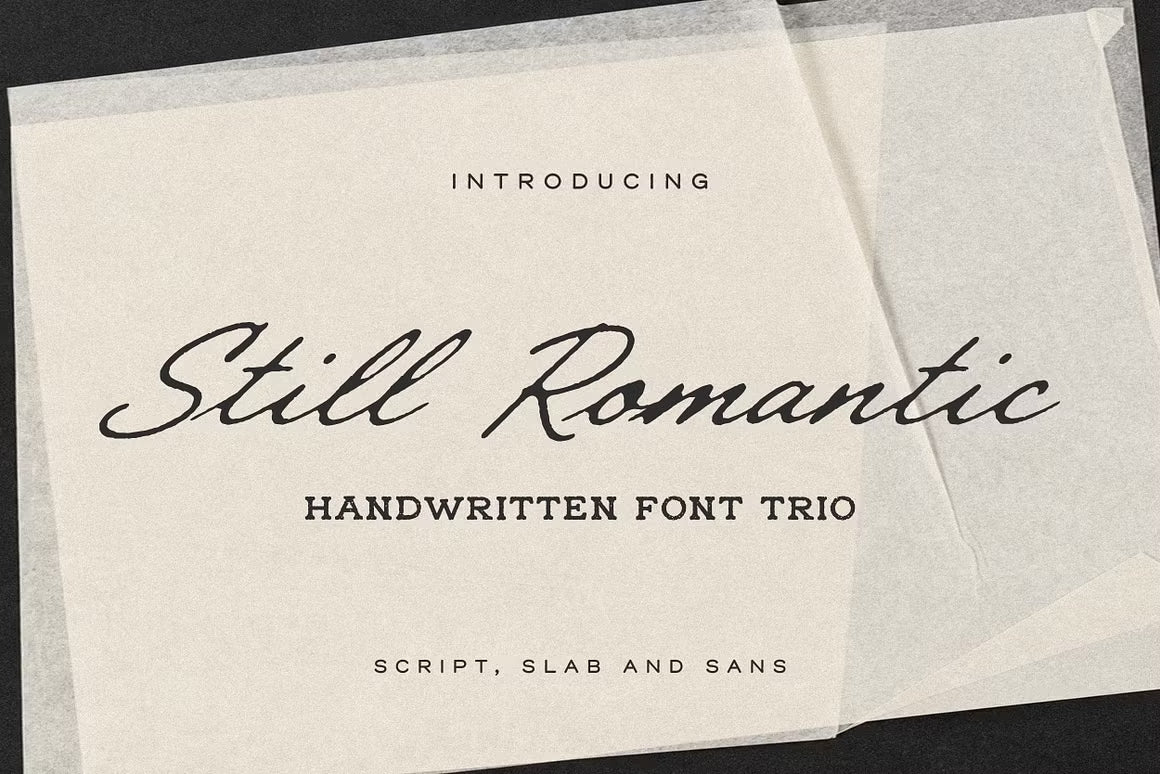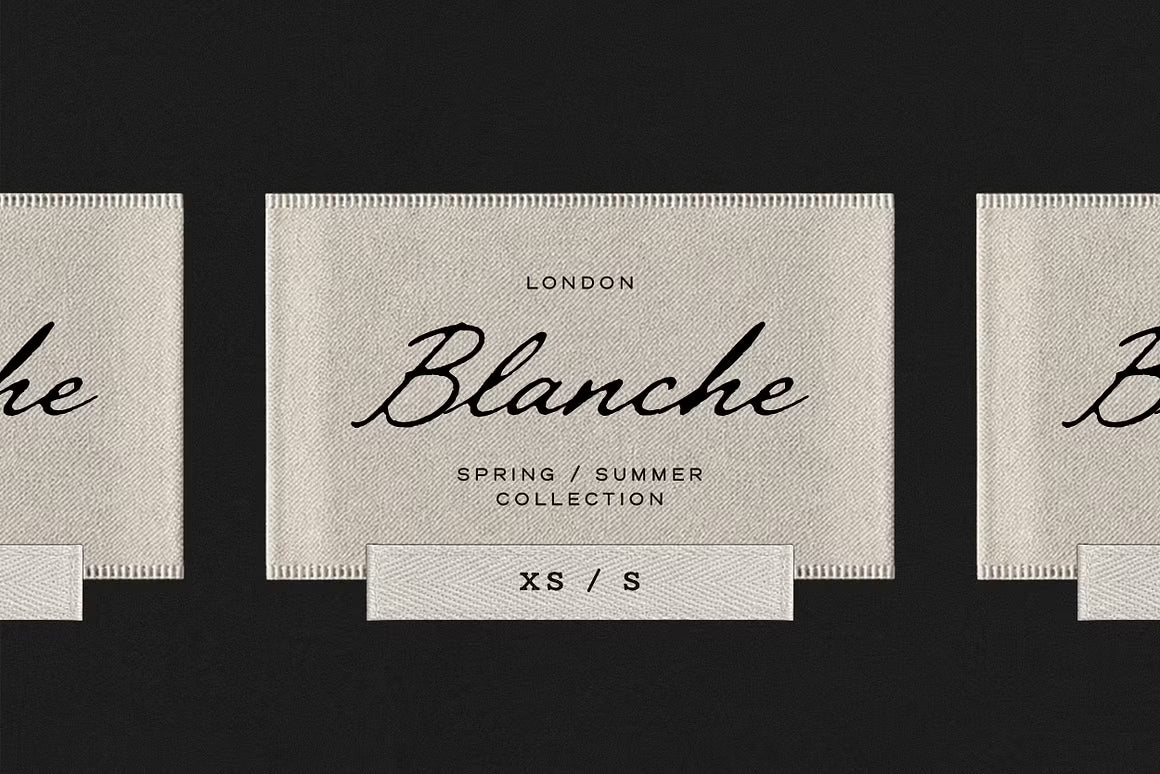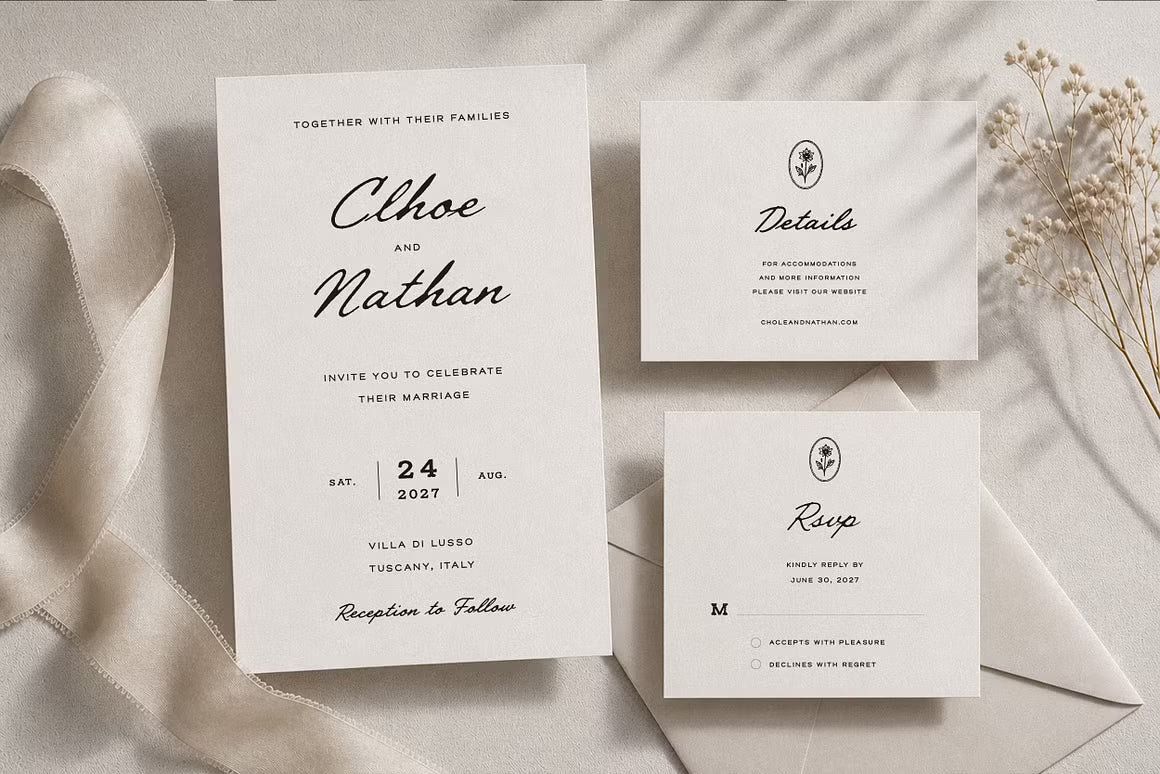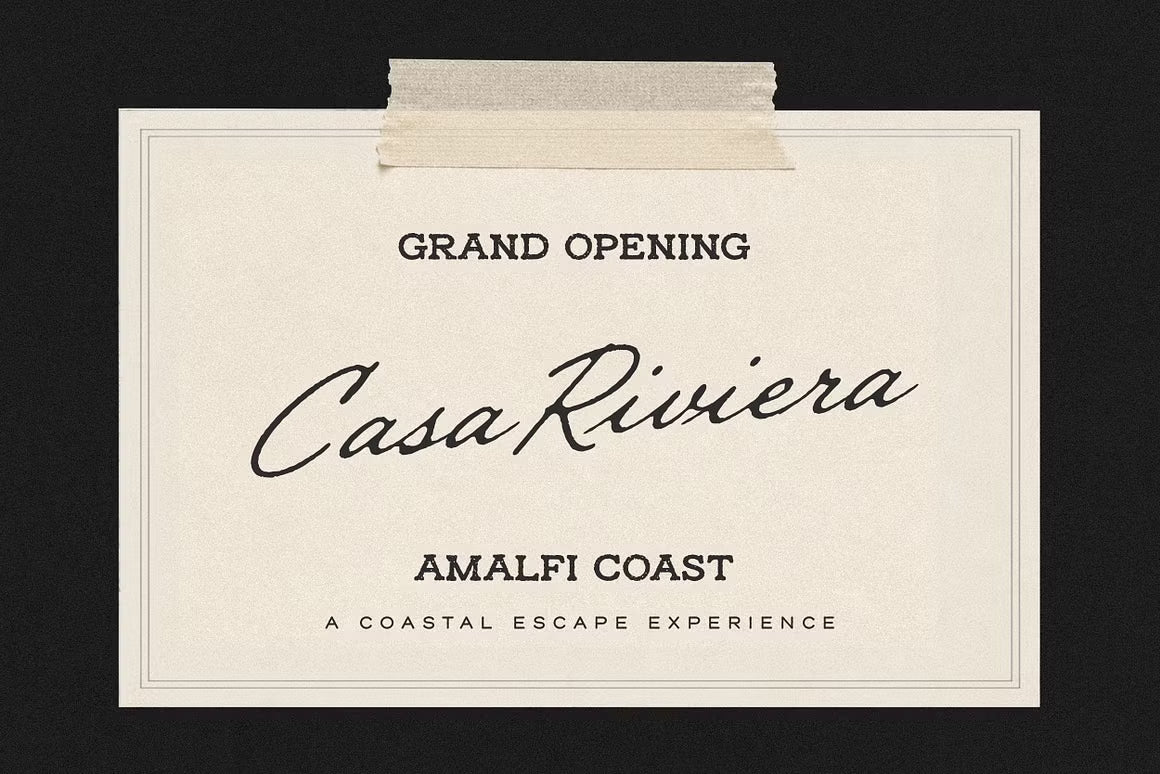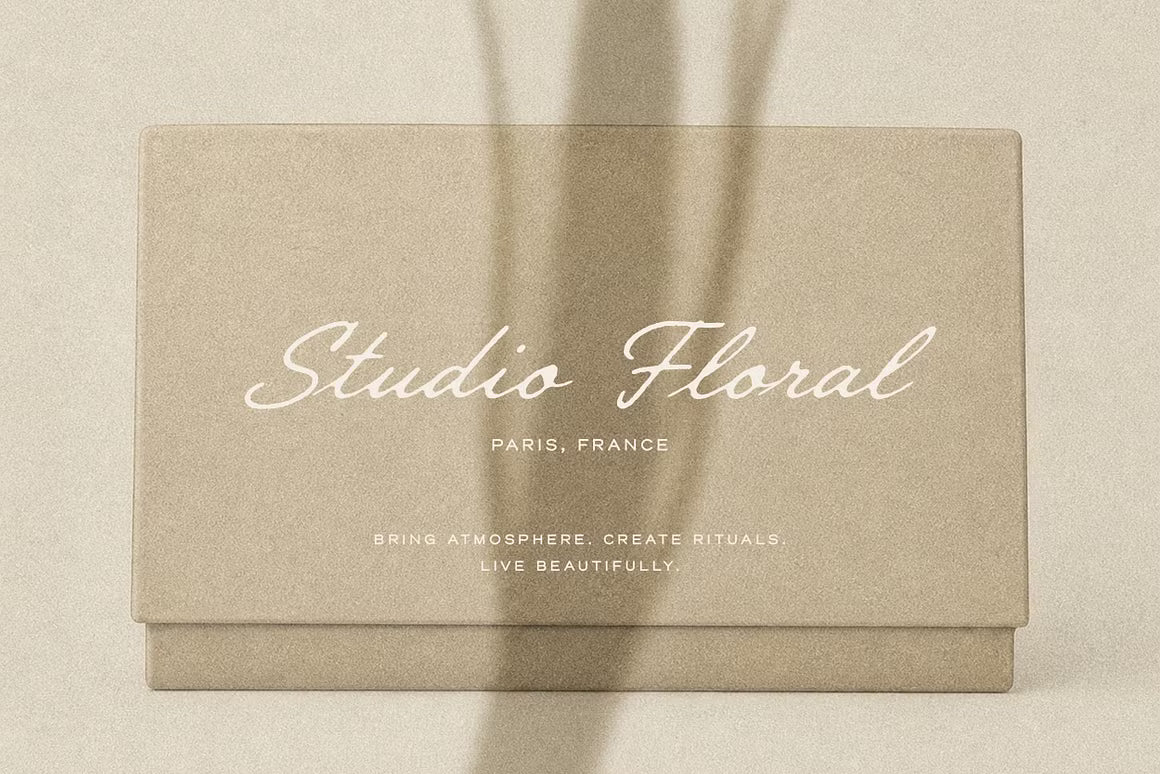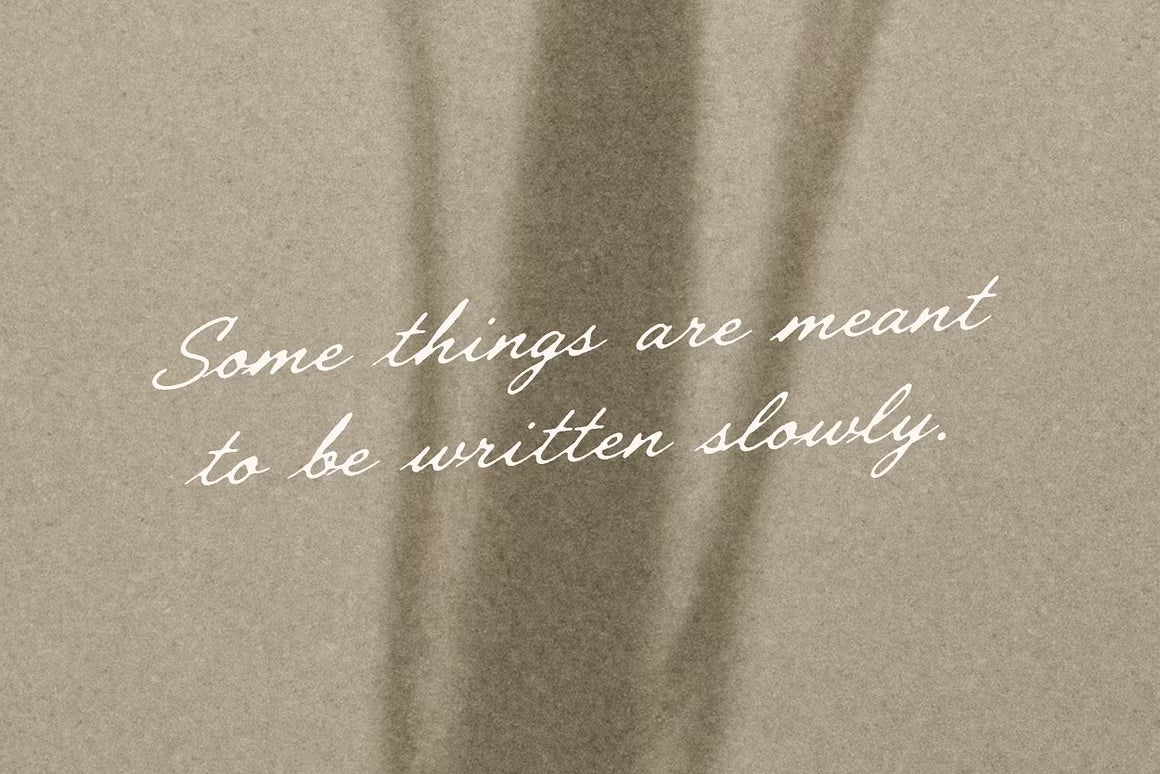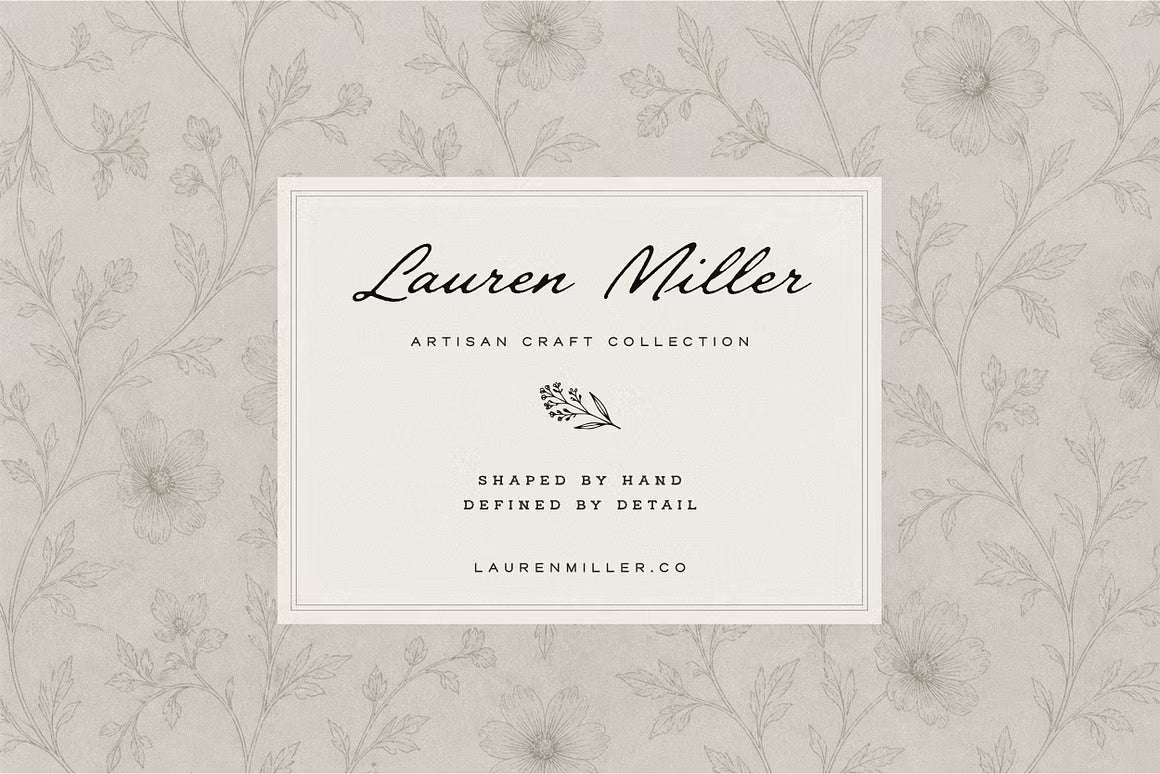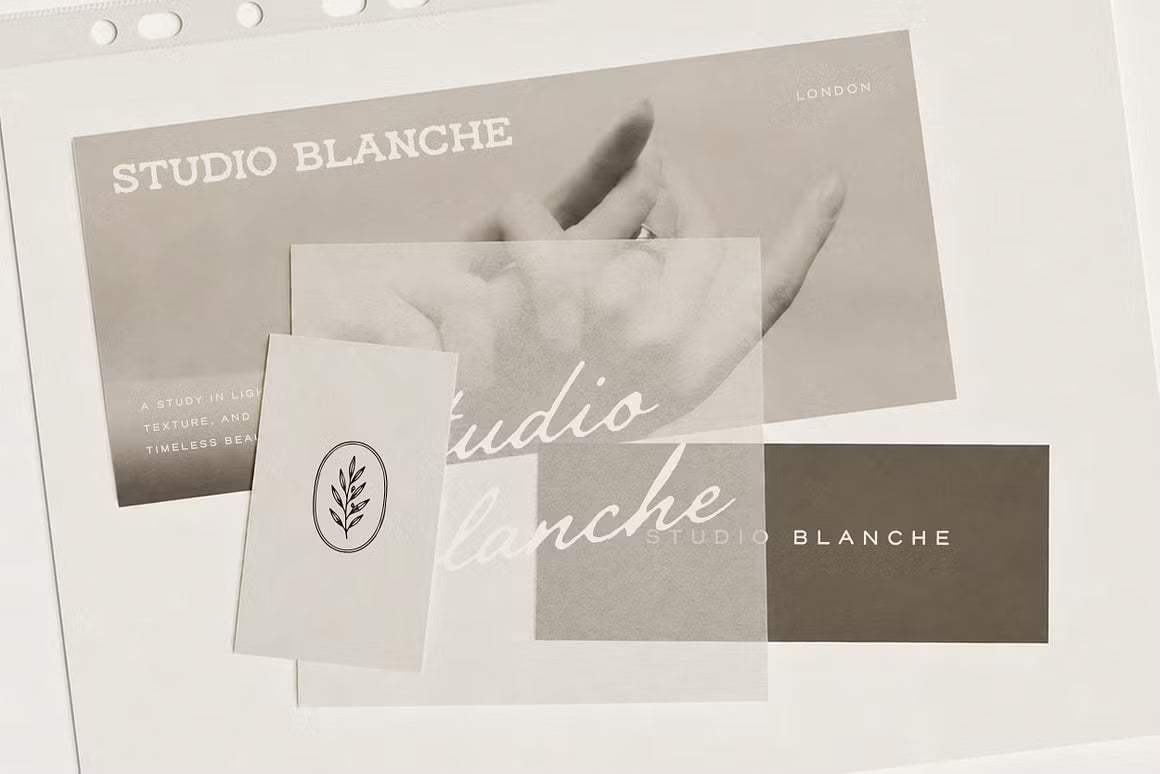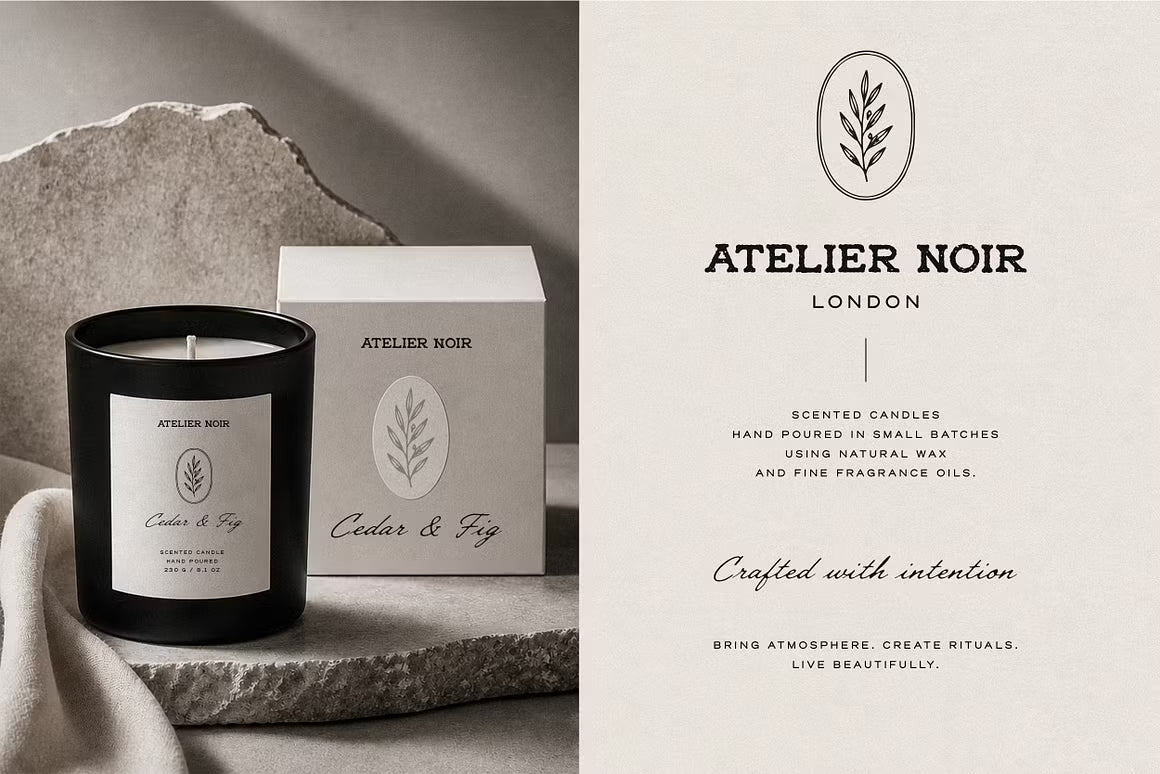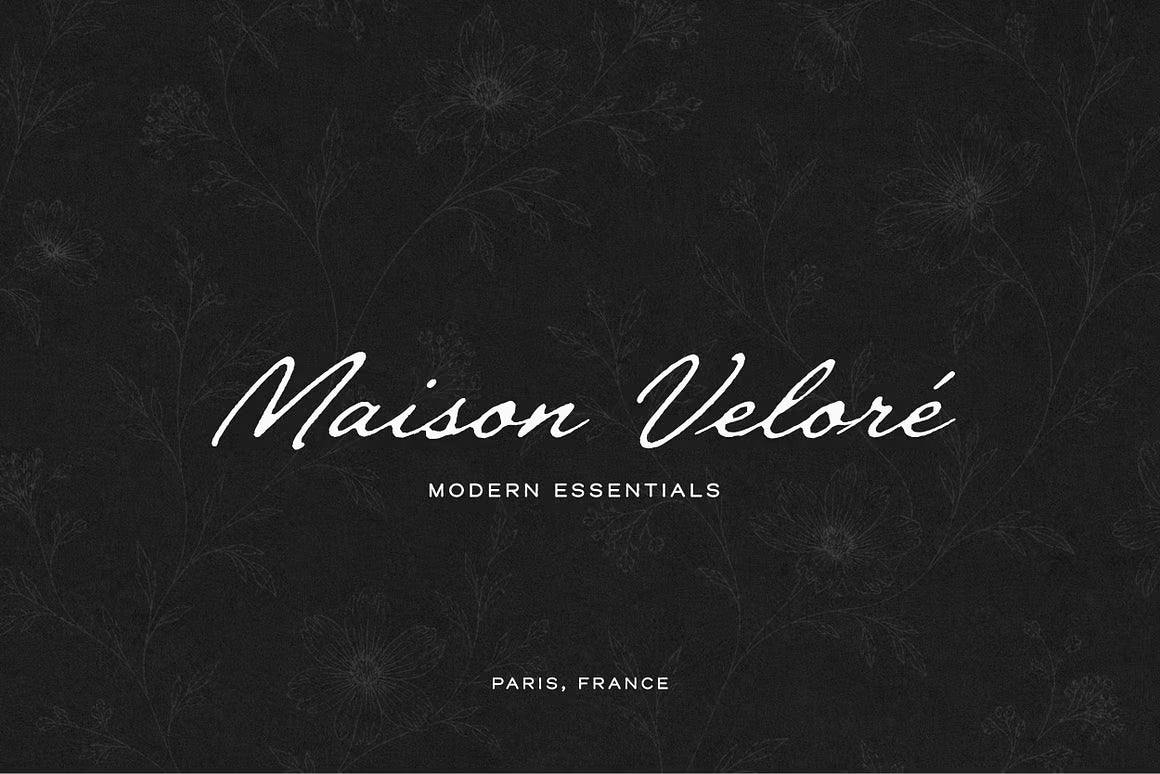
Still Romantic – Font Trio is a thoughtful handwritten collection that brings contrast and balance to your designs. At its heart is a versatile script available in six styles (Light to Bold, plus obliques), paired with a structured slab serif and a clean sans for complete flexibility.
This trio is made for real-world use: elegant yet natural, refined without being stiff. It works wonderfully for wedding stationery, editorial layouts, modern branding, packaging, and any project that benefits from a mix of softness and strength.
A warm, cohesive system that lets you build beautiful hierarchies while keeping everything feeling personal and human.
Still Romantic - Font Trio